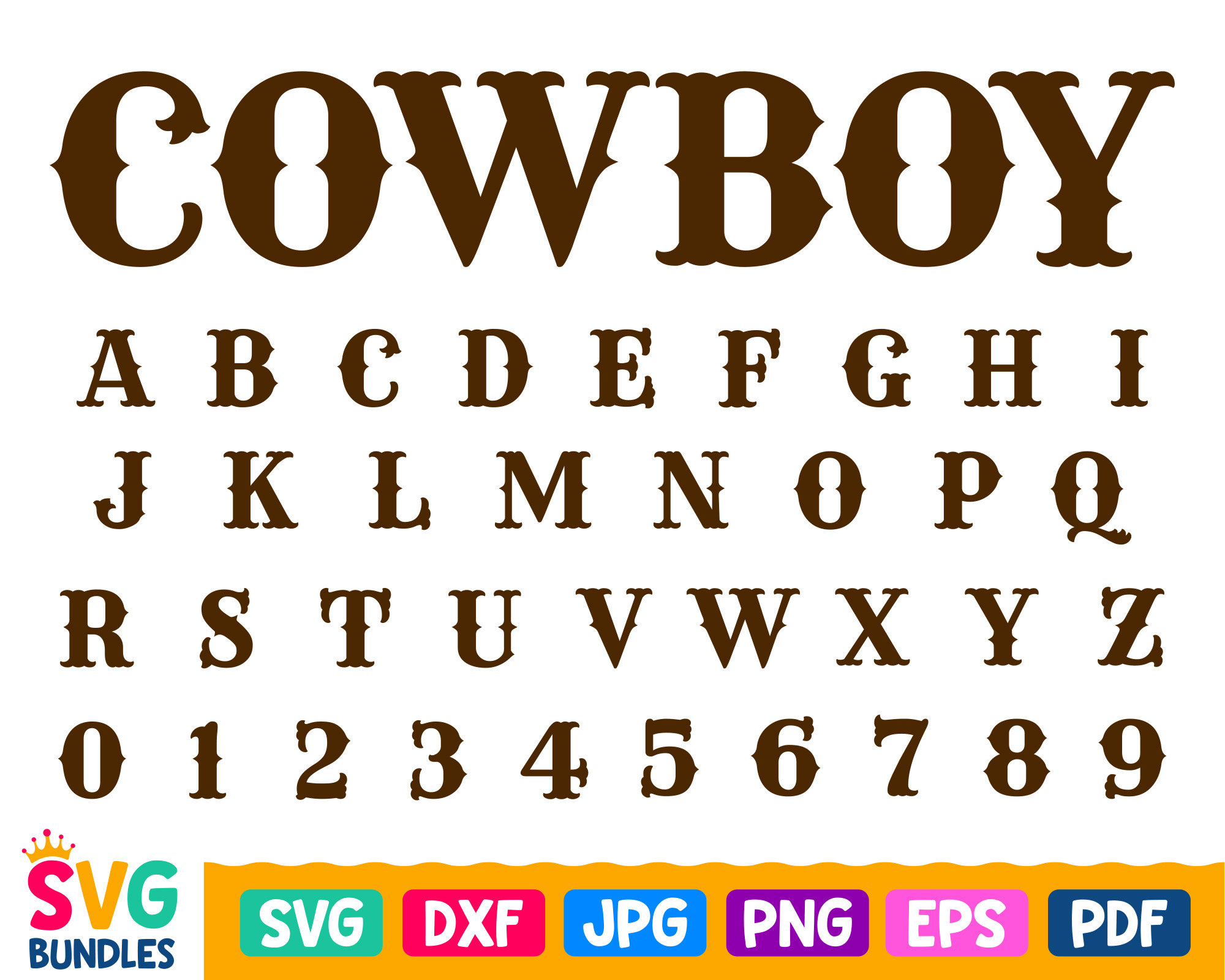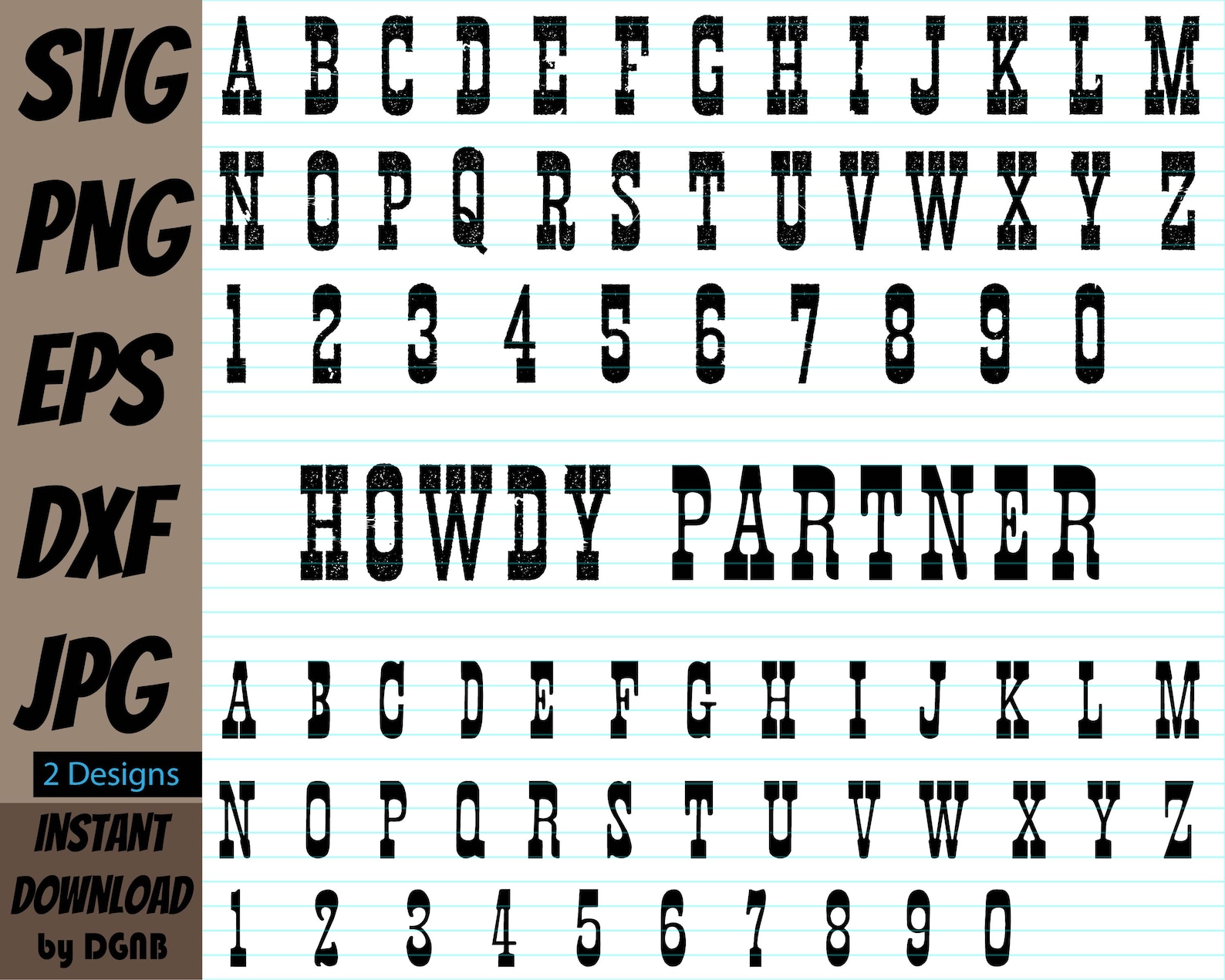
Cowboy Western Font
Cowboy Western Font - Web archive of freely downloadable fonts. Web cowboy vintage slab serif retro headline title poster spurs decorative logotype bold heavy black wild west classic narrow 3d caps. Web unleash your inner cowboy with these free western fonts. Click to find the best 172. 1 to 15 of 127 results. Browse by alphabetical listing, by style, by author or by popularity. Perfect for adding a rustic, vintage charm to your designs! Web the font family cowboy westerncreated by michael hagemann is a typical western style font based on an old slab serif font from. Web modern cowboys by gassstype.
Web unleash your inner cowboy with these free western fonts. Web cowboy vintage slab serif retro headline title poster spurs decorative logotype bold heavy black wild west classic narrow 3d caps. 1 to 15 of 127 results. Perfect for adding a rustic, vintage charm to your designs! Web modern cowboys by gassstype. Click to find the best 172. Browse by alphabetical listing, by style, by author or by popularity. Web the font family cowboy westerncreated by michael hagemann is a typical western style font based on an old slab serif font from. Web archive of freely downloadable fonts.
Web modern cowboys by gassstype. Browse by alphabetical listing, by style, by author or by popularity. Click to find the best 172. Web the font family cowboy westerncreated by michael hagemann is a typical western style font based on an old slab serif font from. Perfect for adding a rustic, vintage charm to your designs! Web archive of freely downloadable fonts. Web unleash your inner cowboy with these free western fonts. Web cowboy vintage slab serif retro headline title poster spurs decorative logotype bold heavy black wild west classic narrow 3d caps. 1 to 15 of 127 results.
Web the font family cowboy westerncreated by michael hagemann is a typical western style font based on an old slab serif font from. Web modern cowboys by gassstype. Browse by alphabetical listing, by style, by author or by popularity. Perfect for adding a rustic, vintage charm to your designs! Click to find the best 172.
Web the font family cowboy westerncreated by michael hagemann is a typical western style font based on an old slab serif font from. Web modern cowboys by gassstype. Web archive of freely downloadable fonts. Perfect for adding a rustic, vintage charm to your designs! Web cowboy vintage slab serif retro headline title poster spurs decorative logotype bold heavy black wild.
Web cowboy vintage slab serif retro headline title poster spurs decorative logotype bold heavy black wild west classic narrow 3d caps. Web unleash your inner cowboy with these free western fonts. Web the font family cowboy westerncreated by michael hagemann is a typical western style font based on an old slab serif font from. 1 to 15 of 127 results..
Click to find the best 172. Web the font family cowboy westerncreated by michael hagemann is a typical western style font based on an old slab serif font from. 1 to 15 of 127 results. Web unleash your inner cowboy with these free western fonts. Web modern cowboys by gassstype.
Web archive of freely downloadable fonts. Web the font family cowboy westerncreated by michael hagemann is a typical western style font based on an old slab serif font from. Web modern cowboys by gassstype. Web unleash your inner cowboy with these free western fonts. 1 to 15 of 127 results.
Web cowboy vintage slab serif retro headline title poster spurs decorative logotype bold heavy black wild west classic narrow 3d caps. Web unleash your inner cowboy with these free western fonts. 1 to 15 of 127 results. Perfect for adding a rustic, vintage charm to your designs! Click to find the best 172.
Web the font family cowboy westerncreated by michael hagemann is a typical western style font based on an old slab serif font from. Click to find the best 172. Browse by alphabetical listing, by style, by author or by popularity. Web archive of freely downloadable fonts. Web modern cowboys by gassstype.
Perfect for adding a rustic, vintage charm to your designs! 1 to 15 of 127 results. Web archive of freely downloadable fonts. Browse by alphabetical listing, by style, by author or by popularity. Web the font family cowboy westerncreated by michael hagemann is a typical western style font based on an old slab serif font from.
1 to 15 of 127 results. Web the font family cowboy westerncreated by michael hagemann is a typical western style font based on an old slab serif font from. Browse by alphabetical listing, by style, by author or by popularity. Web modern cowboys by gassstype. Perfect for adding a rustic, vintage charm to your designs!
Web cowboy vintage slab serif retro headline title poster spurs decorative logotype bold heavy black wild west classic narrow 3d caps. Web archive of freely downloadable fonts. 1 to 15 of 127 results. Web modern cowboys by gassstype.